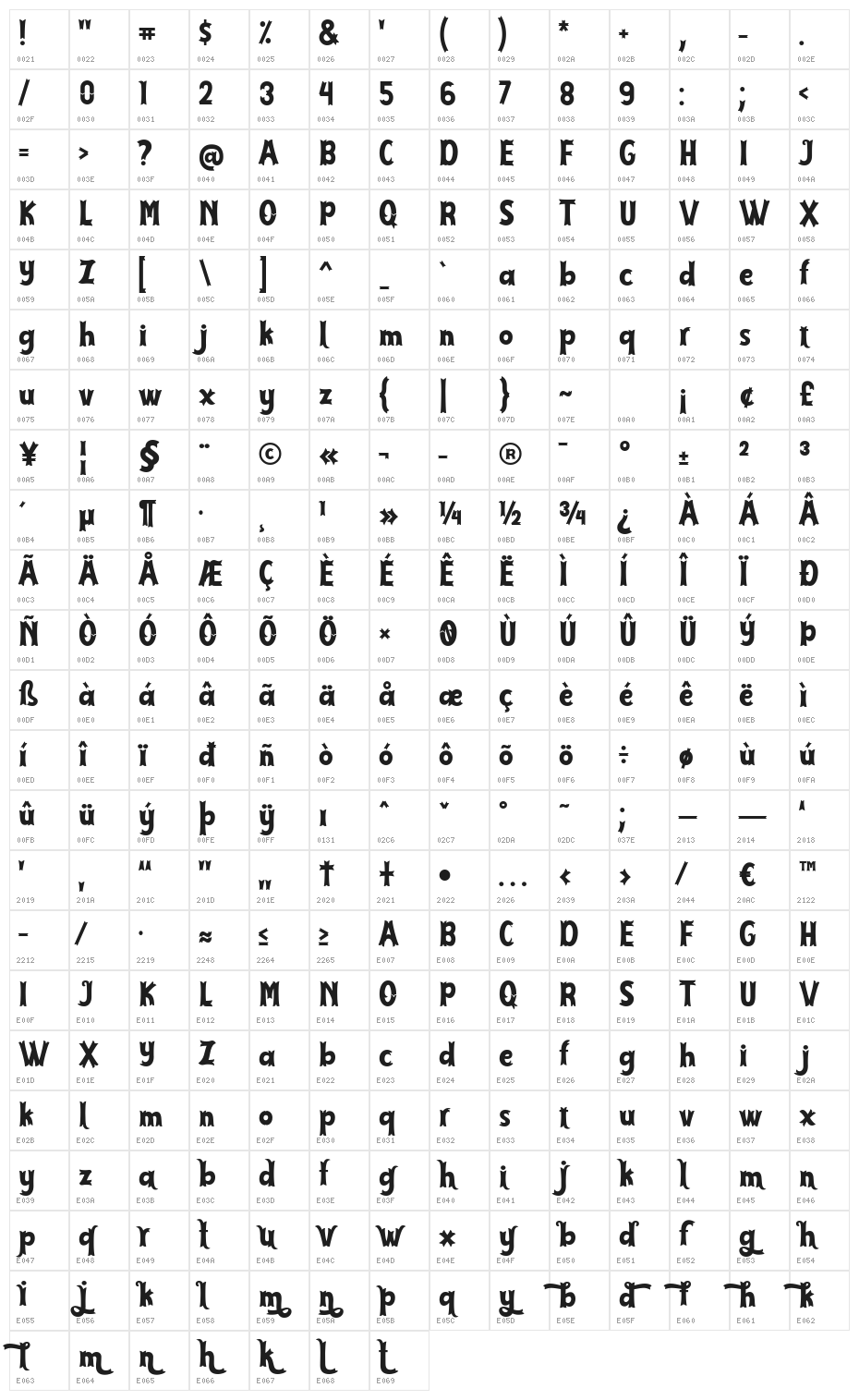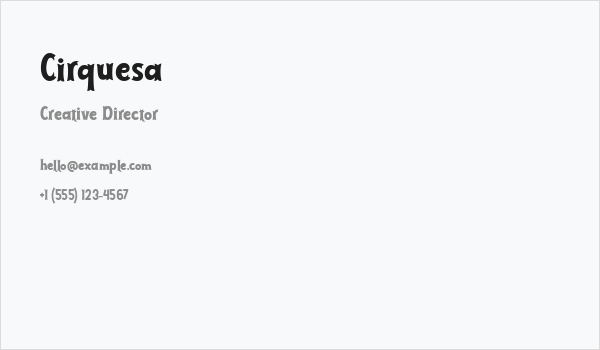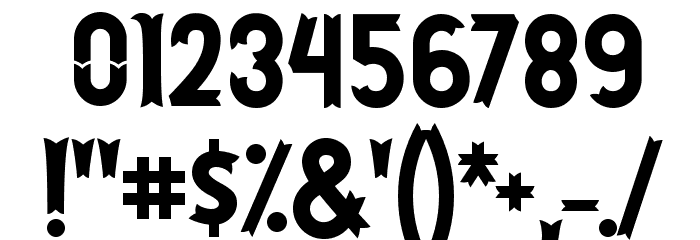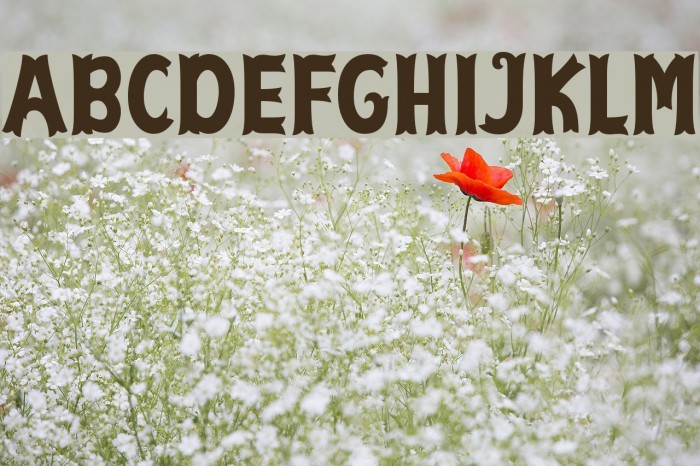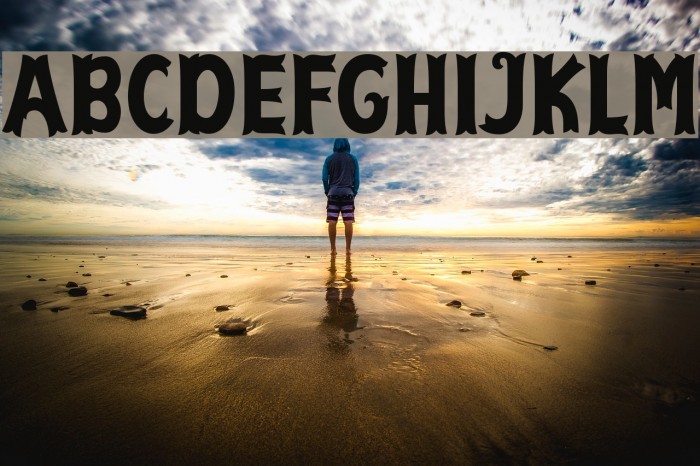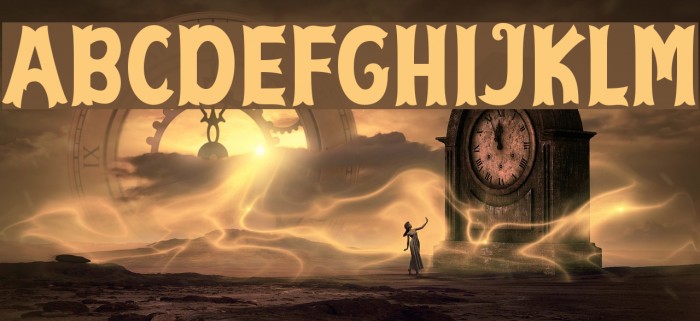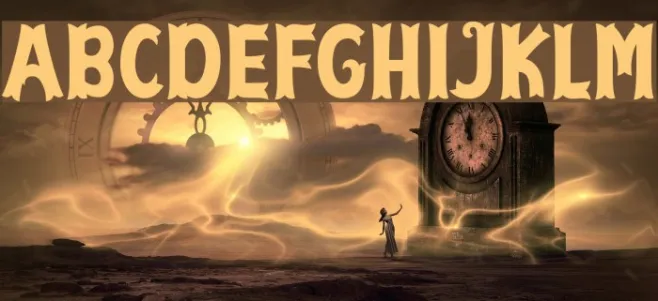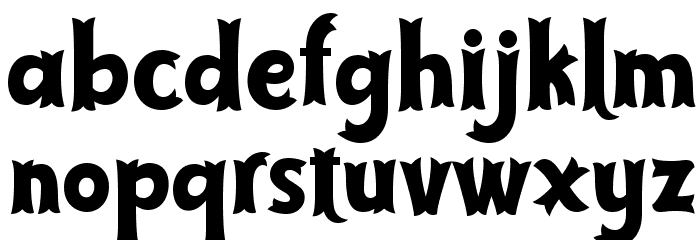
Cirquesa Font
Cirquesa Description
This font features a playful and whimsical design, reminiscent of circus themes. The characters have a bold and dynamic presence, with exaggerated curves and unique serifs that give each letter a lively and animated feel. The uppercase letters are particularly striking, with their bold strokes and distinctive shapes, while the lowercase letters maintain a consistent style that complements the overall aesthetic. The numbers and special characters are equally expressive, adding to the font's versatility. This font is perfect for projects that require a fun and engaging visual impact.
| Proposed Projects | Ideal for circus-themed posters, children's book covers, playful branding, and event invitations. |